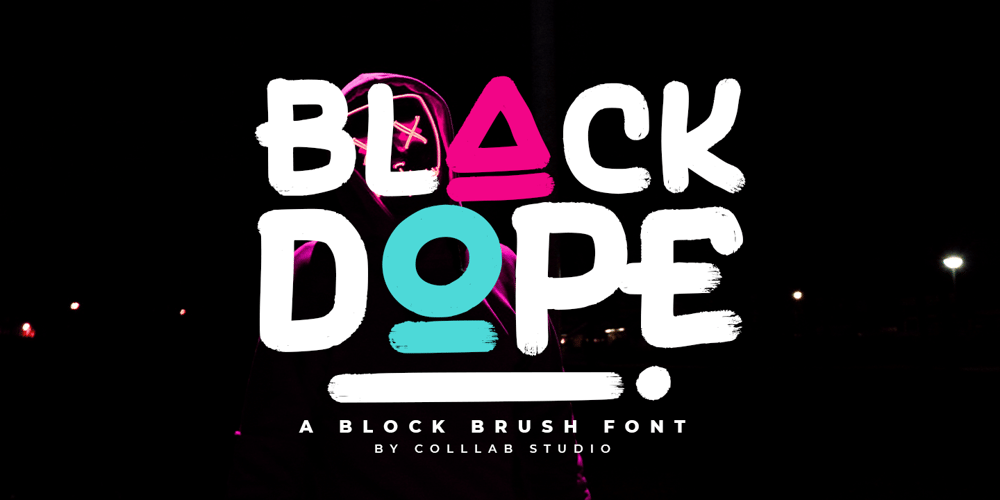
Black Dope Font Family was designed by Muh. Aswar, Awaluddin Syarif and published by Colllab Studio. Black Dope contains 1 styles and family package options. “Hi there, thank you for passing by. Colllab Studio is here. We crafted best collection of typefaces in a variety of styles to keep you covered for any project that comes your way!Introducing Black Dope is a bold brush font, it has a strong character. Inspired by the bold lettering found in classic show-cards and advertisements, it will add character to any design. This font is a blast from the past and a step into future. It’s bold, it has a strong character and it is full of life.Works perfectly in small size and large size. Eye-catching details show the temperament of the font. especially if you need to put a unique and strong character designed for your posters, headlines, T-shirt designs, labels, signage nameplates, brands etc.A Million Thankswww.colllabstudio.com